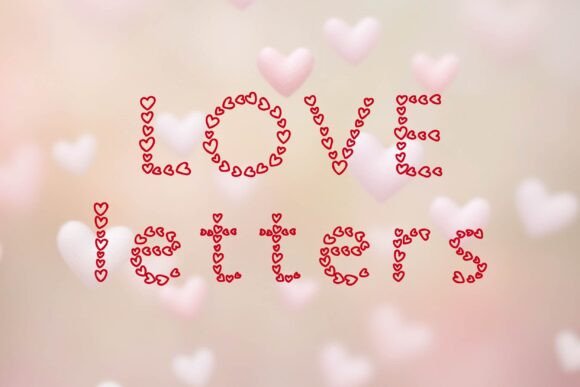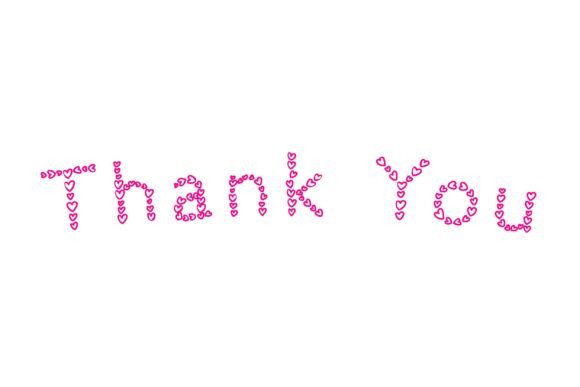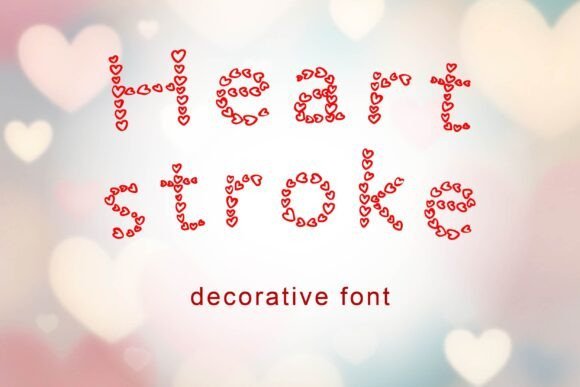
Introduction to Heart Stroke Font
Heart Stroke is a decorative font where each letter is made up of tiny, cute hearts, giving it a lovely and romantic feel.
Perfect for adding a touch of love to any design .